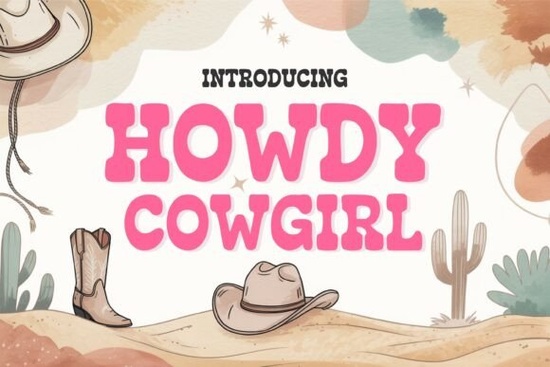
If you're looking for a friendly, rustic typeface that brings genuine western charm without feeling cartoonish or overdone, Howdy Cowgirl Font fits the bill. It’s not just another “cowboy font” it balances sturdy serifs, soft curves, and subtle texture in a way that feels warm and intentional. Whether you’re designing a barn dance banner, a farmhouse-style quote print, or custom mugs for a cowgirl-themed birthday, this font adds personality without shouting.
What makes Howdy Cowgirl work so well for real projects?
Unlike some display fonts that look great on screen but fall apart when cut or printed, Howdy Cowgirl was built with practical use in mind. Its letterforms are clean enough for precise vinyl cutting on Cricut and Silhouette machines, yet retain enough character to feel handcrafted. The uppercase and lowercase sets include full punctuation and numerals, and it supports common multilingual characters helpful if you’re making bilingual party signs or shop labels for a small business.
The spacing is generous, and the weight holds up beautifully at both large sizes (think wooden wall signs or event backdrops) and smaller applications like printable tags or iron-on transfers. You’ll notice how smoothly it pairs with simple sans-serif companions try pairing it with a light, airy font like Beautiful Lashes for contrast in wedding stationery, or layer it over textured backgrounds in Canva or Photoshop for social media posts.
Where do crafters and small businesses actually use it?
- Rustic weddings: Menu cards, seating charts, and “Mr. & Mrs.” signage especially when paired with burlap, wood grain, or dried florals.
- Kid’s parties: Invitations, cupcake toppers, and photo booth props for cowgirl-themed birthdays or school Western Day events.
- Print-on-demand shops: T-shirt designs, tote bags, and mugs benefit from its strong silhouette and clear readability even at smaller print sizes.
- Farmhouse decor: Wooden signs, chalkboard-style prints, and sublimation blanks like ceramic coasters or aprons.
- Digital planners & printables: Monthly goal trackers or gratitude journals where a little warmth helps the tone feel personal and grounded.
It’s also one of the more versatile western-style fonts you’ll find not so niche that it only works for rodeos. For example, it reads clearly on Instagram Stories or Etsy listing thumbnails, and scales cleanly in Procreate for hand-lettered mockups. If you’ve tried other country fonts that feel stiff or overly decorative, Howdy Cowgirl’s velvety arcs and relaxed rhythm may be the refresh your toolkit needs.
How does it compare to similar fonts on Creative Fabrica?
While Stay Lucky leans into playful retro charm and Heart Font offers delicate script energy, Howdy Cowgirl sits comfortably in the middle structured but friendly, bold but not aggressive. It shares some of the warmth of Christmas Radiance, but without seasonal constraints, making it usable year-round. And unlike many rustic fonts, it doesn’t rely on heavy distressing or faux-weathering to sell the vibe the design does the work.
Tip: If you’re using it for vinyl or heat transfer projects, test a small cut first especially with intricate letters like “g” or “y.” Their smooth terminals hold up well, but material thickness and blade settings still matter.